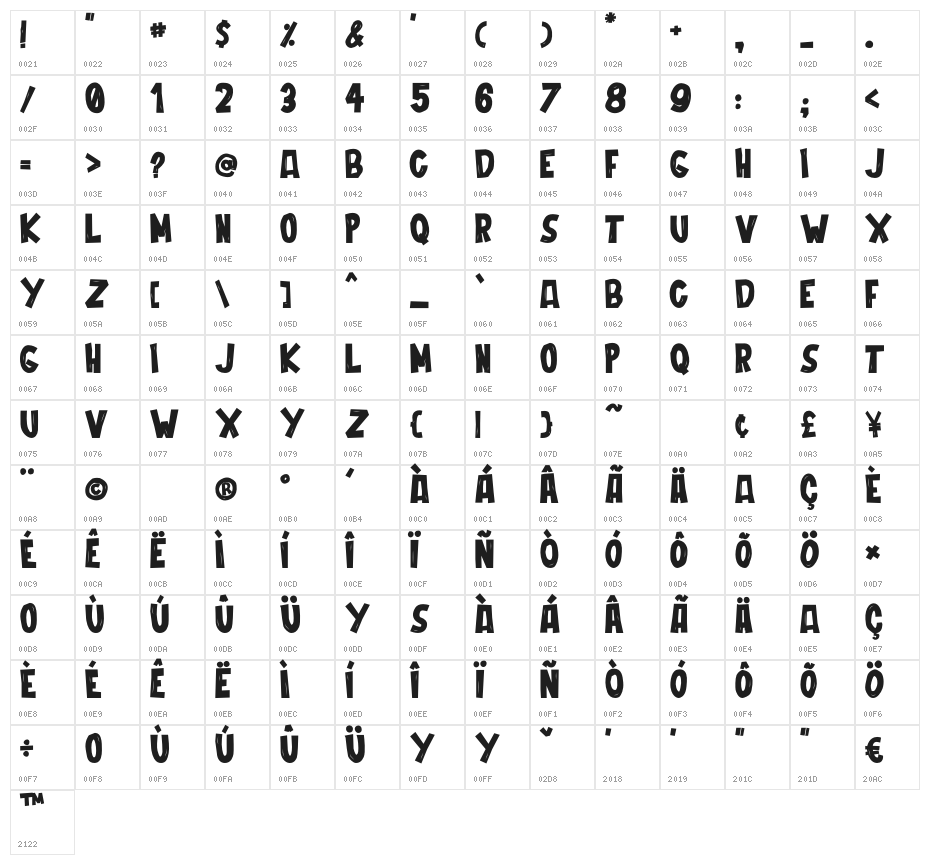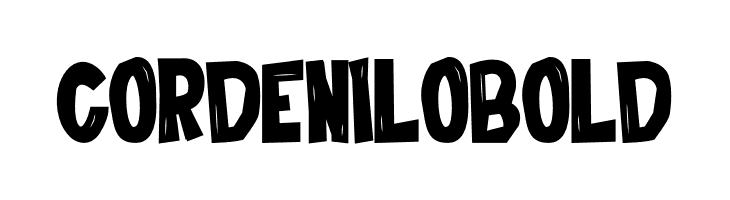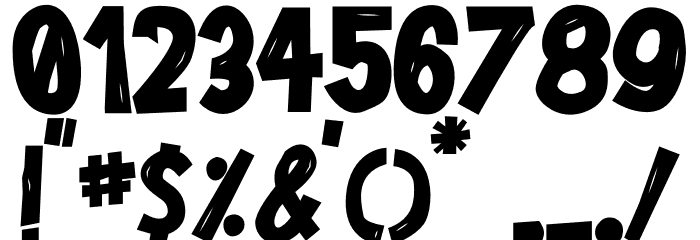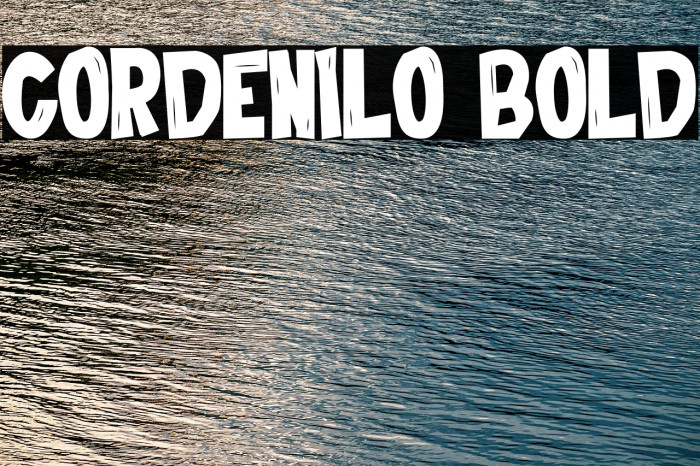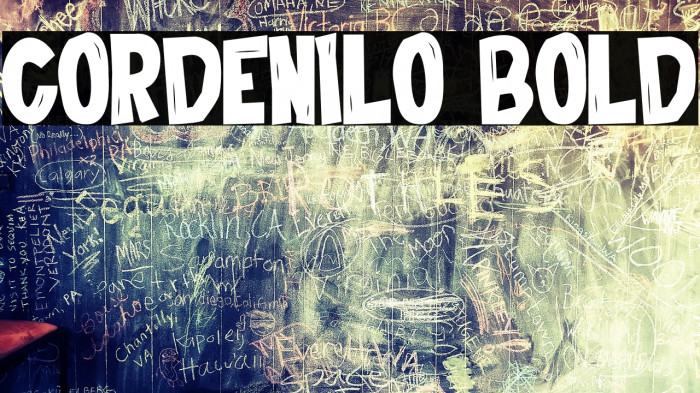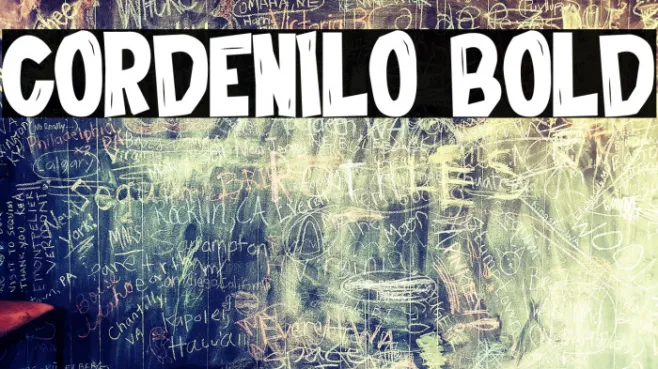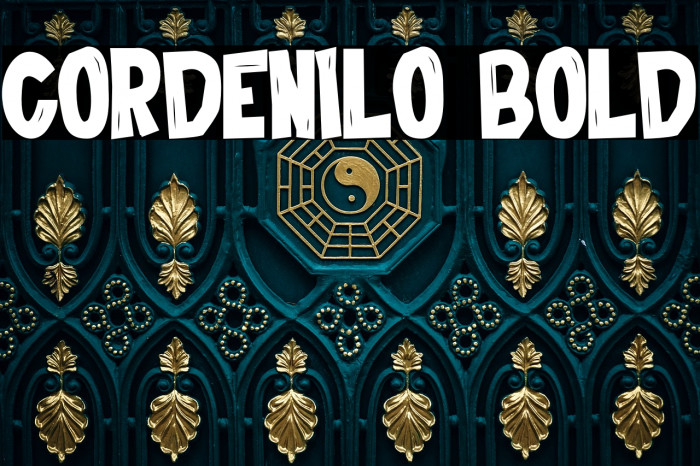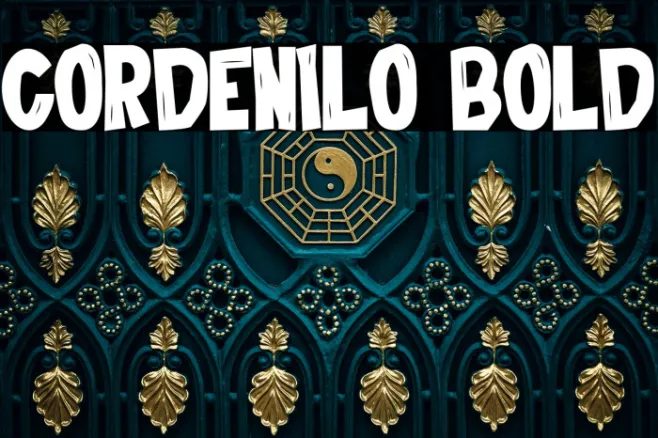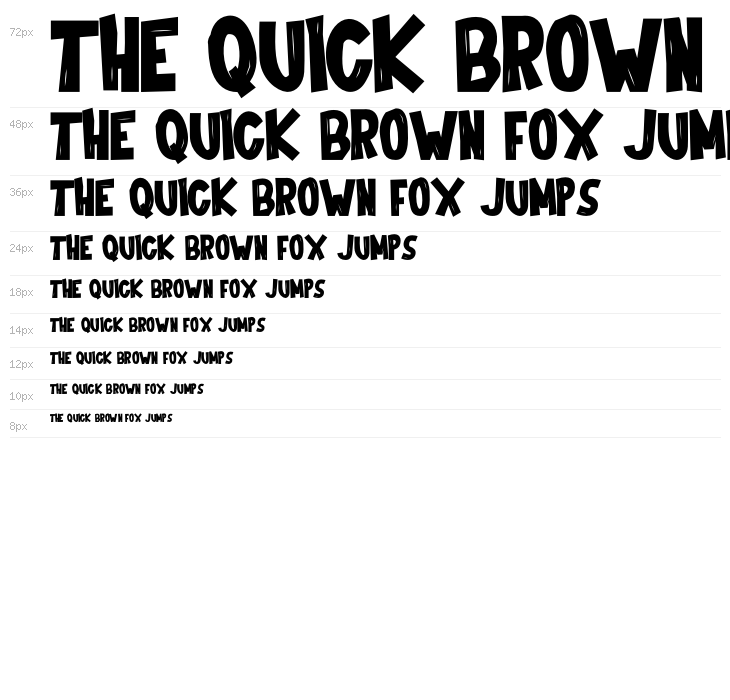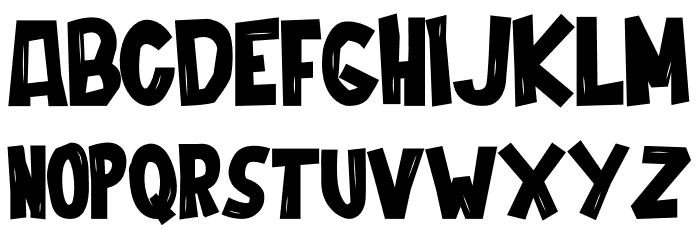
Cordenilo Bold Font
Cordenilo Bold Description
This bold, decorative font features a playful and dynamic style with exaggerated, uneven strokes that give it a hand-drawn appearance. The characters are bold and slightly irregular, with a sense of movement and energy. The uppercase and lowercase letters maintain a consistent height, while the numbers and special characters follow the same lively design. The font's unique style makes it stand out, perfect for projects that require a fun and engaging look.
| Overall Style | Playful, Energetic, Hand-drawn |
| Proposed Projects | Ideal for children's books, comic strips, posters, and playful branding projects. |